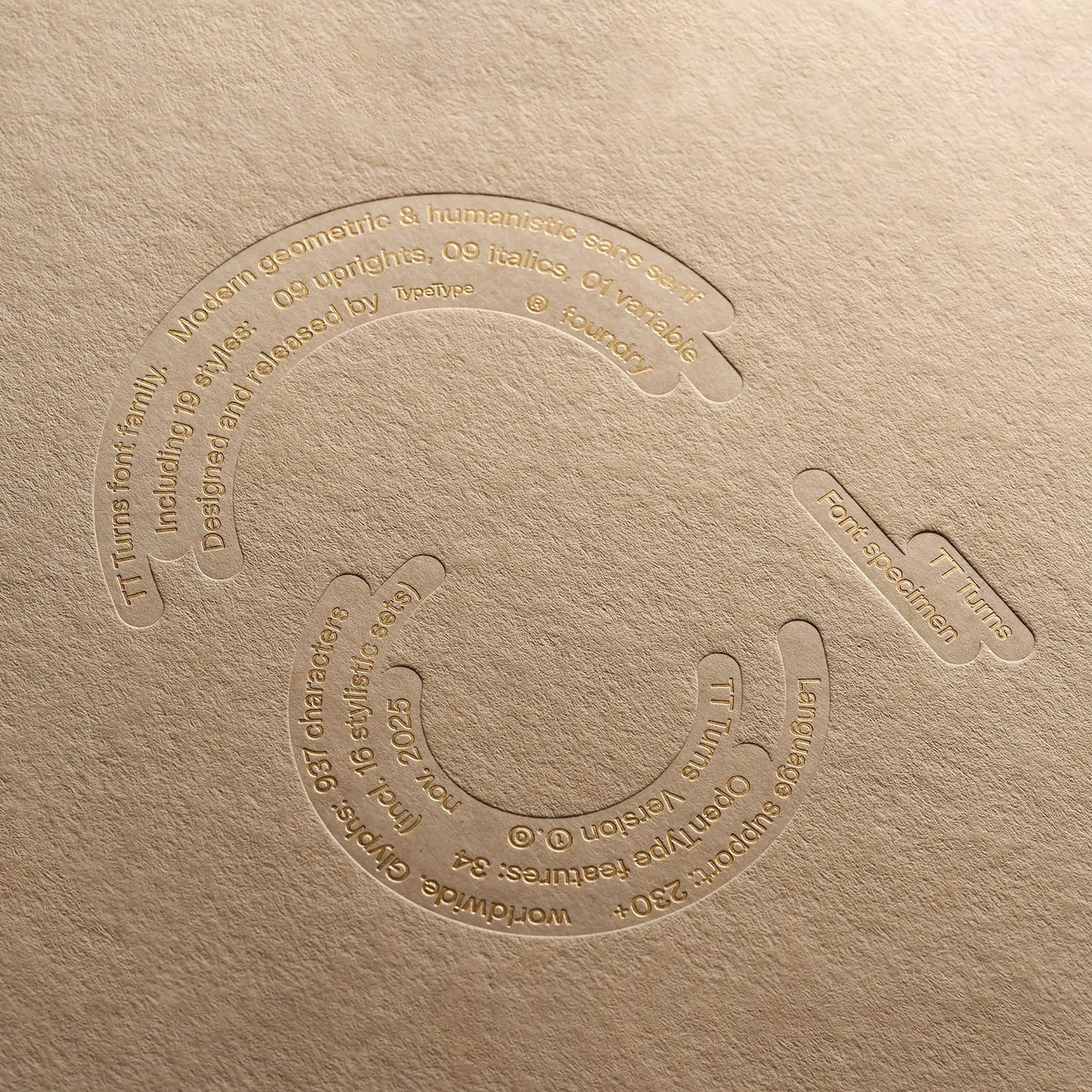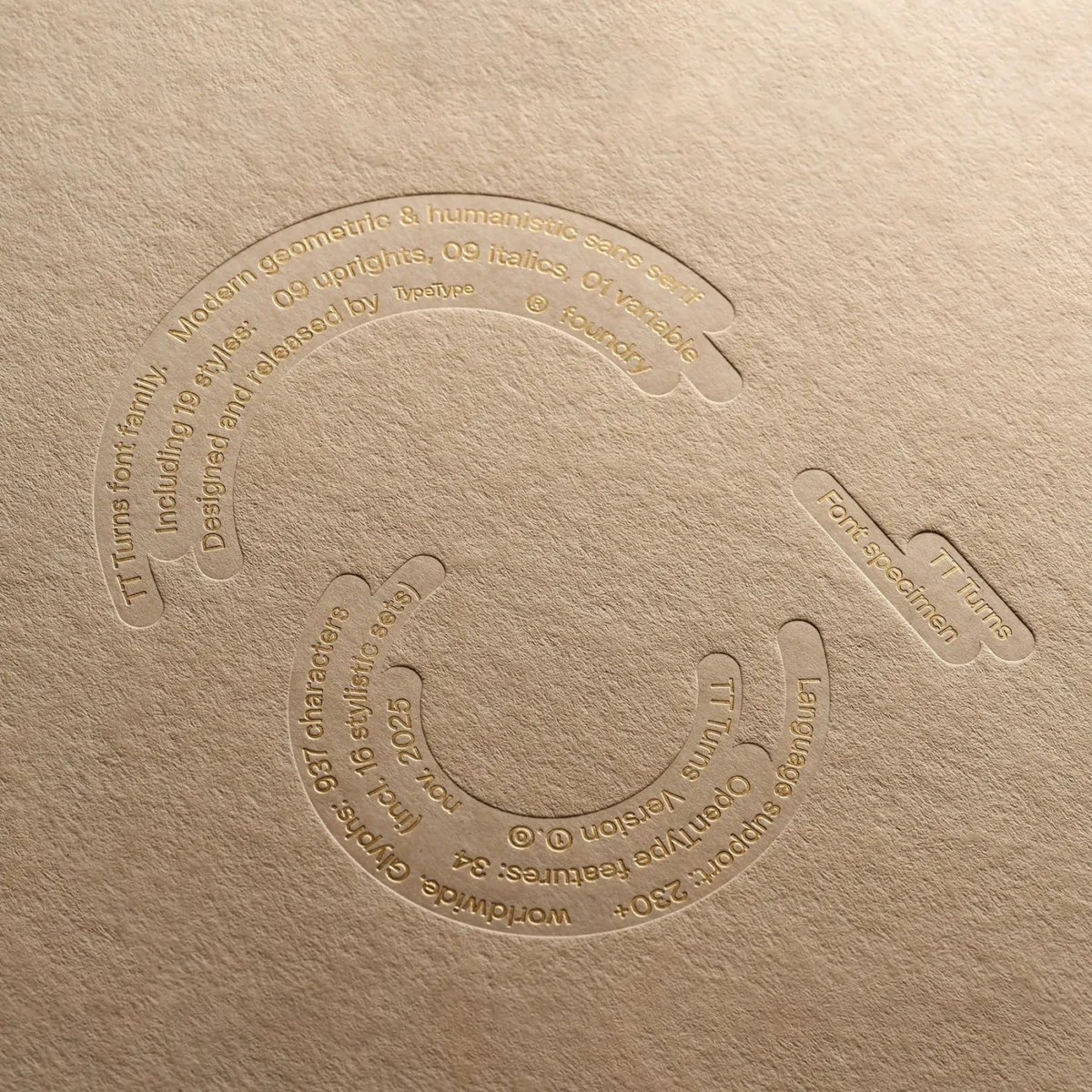
Every individual letter shape within the TT Turns family exhibits clean baseline alignment and a remarkable degree of geometric restraint. This precision ensures inherent legibility and a consistent visual rhythm across diverse applications. The underlying modular grid system, a testament to sophisticated typographic engineering, supports an impressive nineteen distinct styles, all unified across a seamless weight axis. This extensive structural hierarchy is paramount to the typeface’s functionality, guaranteeing clean, crisp reading at any scale, from intricate body text to expansive display headlines. A defining characteristic, the subtly "turned" curves on terminals, introduces a unique visual rhythm, elevating standard layout designs with an understated yet distinctive flair.
TT Turns Font & Specimen by Pavel Emelyanov
The Genesis of TT Turns: A Vision of Balance
The development of TT Turns is rooted in a deep understanding of typographic history and a forward-looking embrace of modern font technology. Pavel Emelyanov, a prominent figure in the type design world and a co-founder and art director at TypeType Foundry, envisioned a sans-serif that could bridge the often-disparate worlds of geometric precision and organic warmth. Geometric sans-serifs, popular since the early 20th century with examples like Futura, are celebrated for their clarity and modernity. However, they can sometimes feel cold or impersonal. Conversely, humanist sans-serifs, drawing inspiration from classical calligraphy, often offer greater readability but can lack the crispness of their geometric counterparts. TT Turns deliberately navigates this space, offering a typeface that is structurally sound yet emotionally engaging.
The design process likely involved extensive research into historical typefaces, sketching countless glyphs, and rigorous digital refinement. The concept of "turned curves" is not merely an aesthetic flourish but a deliberate design decision to infuse the typeface with personality and a subtle kinetic energy. These subtle nuances are critical in creating a font that stands out in a crowded market while maintaining broad applicability. The project’s timeline, though not explicitly detailed, would have progressed through several iterative phases: from initial conceptualization and ideation, through detailed glyph drawing and spacing, to the development of the variable font technology, followed by comprehensive testing and the meticulous creation of the specimen booklet.
Variable Font Technology: Unlocking Unprecedented Flexibility
A cornerstone of TT Turns’ innovation is its implementation as a variable font. Variable font technology, standardized under OpenType 1.8, represents a paradigm shift in font design and deployment. Instead of delivering multiple individual font files for different weights, widths, or optical sizes, a single variable font file contains a range of master designs and interpolation data. This allows designers to access an infinite spectrum of variations along specified design axes—in this case, primarily a unified weight axis—from a single, compact file.
For TT Turns, this means designers are not limited to predefined weights but can precisely dial in any intermediate weight between its lightest and boldest styles. This granular control provides unparalleled flexibility for responsive design, fine-tuning typographic hierarchies, and achieving perfect visual balance in complex layouts. The nineteen distinct styles mentioned are likely key points along this variable axis, offering readily accessible options while preserving the ability for infinite interpolation. This not only streamlines workflows but also significantly reduces file sizes, a critical advantage for web and app development where performance is paramount. TypeType Foundry, known for its commitment to cutting-edge technology, has effectively leveraged this innovation to position TT Turns as a highly adaptable and future-proof design solution.
The Specimen: A Tactile Celebration of Typography
The presentation of TT Turns through its physical specimen is as thoughtfully designed as the typeface itself. The choice of kraft paper, with its raw texture and warm stock, combined with stark black ink, creates a high-contrast layout that is both visually striking and tactilely engaging. This deliberate material choice emphasizes the fundamental construction of the letterforms, drawing the viewer’s attention to the intricate details and robust structure of the characters rather than being distracted by elaborate styling or color. This raw aesthetic aligns with a growing trend in design to celebrate authenticity and craftsmanship.
The specimen effectively showcases the typeface’s strengths across both Latin and Cyrillic scripts, demonstrating its global versatility and consistent design integrity. The turned terminals, a hallmark of TT Turns, maintain their distinct character and consistency across all glyphs, a challenging feat in multi-script typeface development. Furthermore, the typographic scaling within the specimen holds firm, illustrating its robust performance in both editorial layouts and interface environments. This meticulous attention to detail in the specimen itself reinforces TypeType Foundry’s assertion that TT Turns is a "highly useful design tool," providing a tangible demonstration of its capabilities.
The layout of the specimen skillfully utilizes generous negative space, a fundamental principle of good design, to establish strong compositional tension. This structural choice frames each letterform with extreme care, allowing individual characters and word blocks to breathe and assert their visual presence without overcrowding. The visual weight across the pages remains impeccably balanced, ensuring that each glyph holds its position and contributes to an overall harmonious and neat typographic system. This approach not only enhances readability but also serves as a masterclass in effective typographic presentation, guiding designers on how to best utilize the typeface in their own projects.
Official Reactions and Industry Implications
While specific public statements from TypeType Foundry regarding the TT Turns release are not yet widely disseminated, industry observers and design critics anticipate a positive reception. TypeType Foundry typically emphasizes the practical utility and innovative spirit of its releases. It is highly probable that they would highlight TT Turns’ unique blend of geometric precision and humanist warmth, its comprehensive weight axis facilitated by variable font technology, and its robust performance across multiple scripts and applications. They would likely position it as an indispensable asset for graphic designers, branding agencies, web developers, and editorial designers seeking a contemporary yet timeless sans-serif solution.